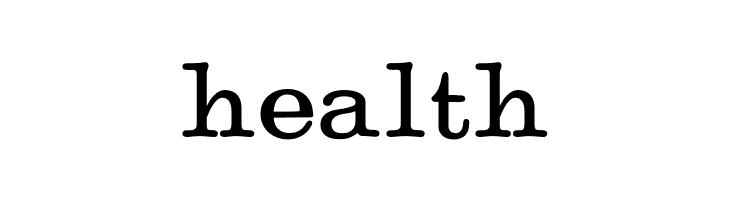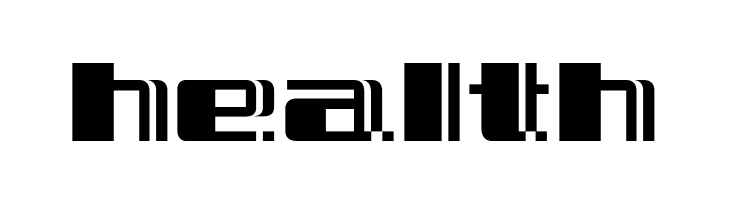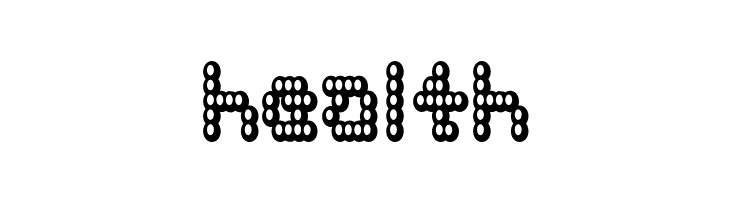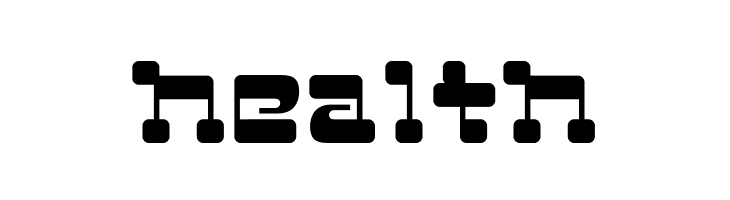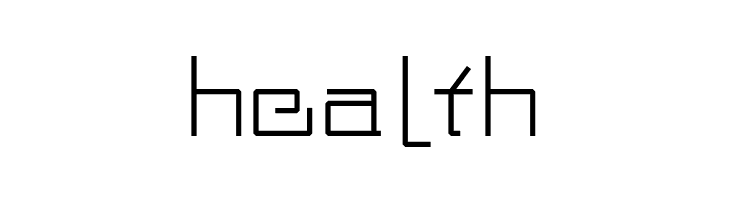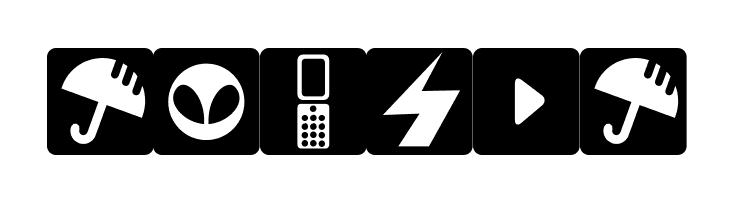
A classic serif font with elegant and well-defined characters.
A bold, futuristic font with geometric and block-like design.
A clean, modern sans-serif font with a balanced and versatile design.
A playful, dot-based decorative font with a modern and friendly appearance.
A bold, geometric font with a modular and futuristic design.
A geometric, futuristic font with angular, linear design and uniform stroke width.
A bold, geometric font with an industrial and futuristic design.
A bold slab serif font with strong, block-like serifs and a modern yet classic appeal.
A bold, three-dimensional font with a shattered glass effect.
A bold, geometric font with enclosed characters and playful symbols.